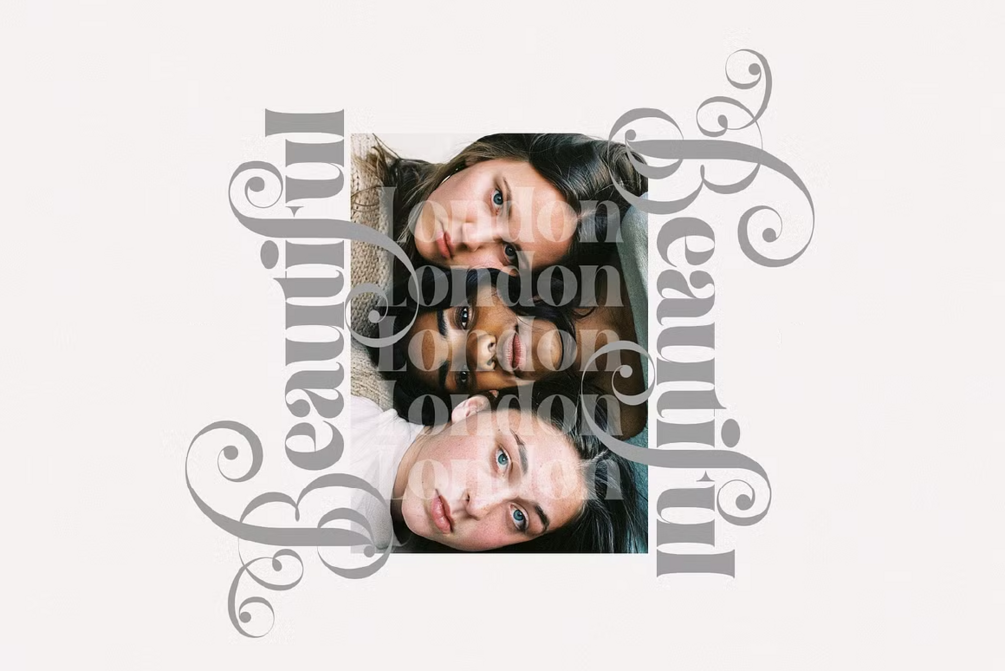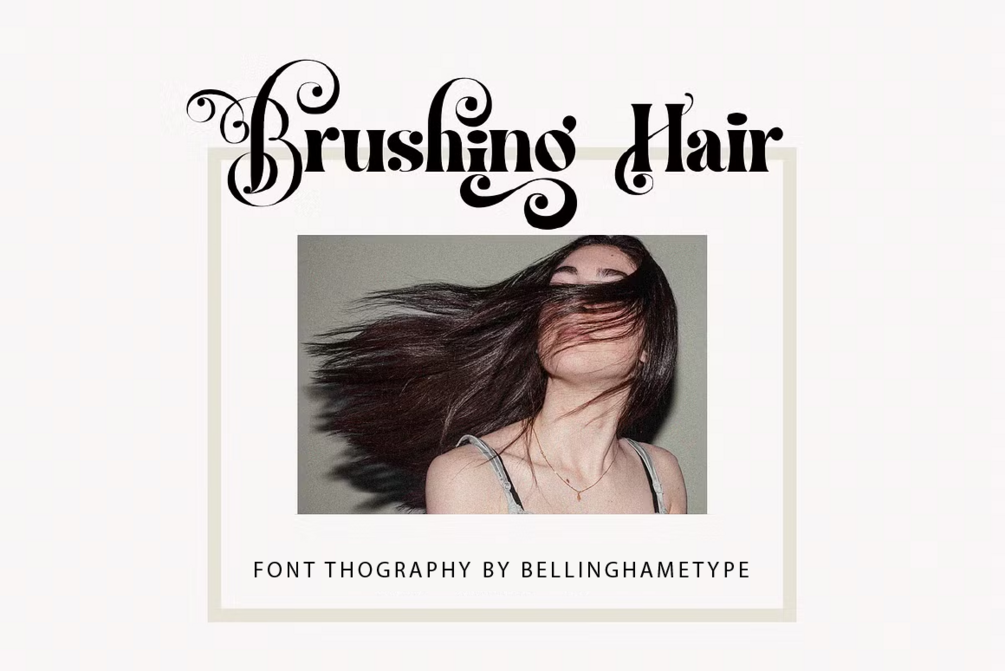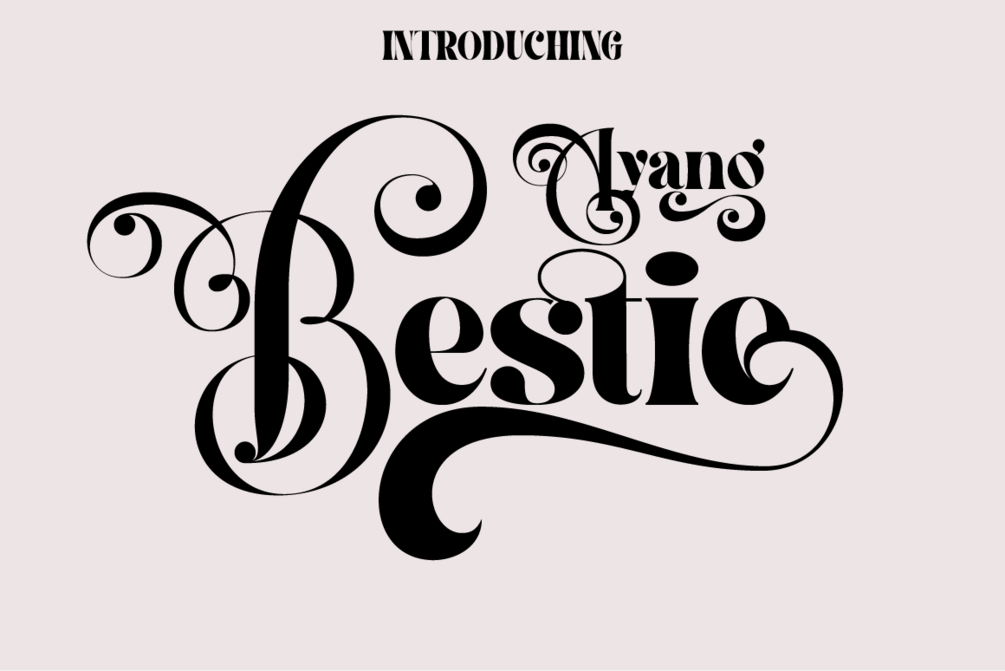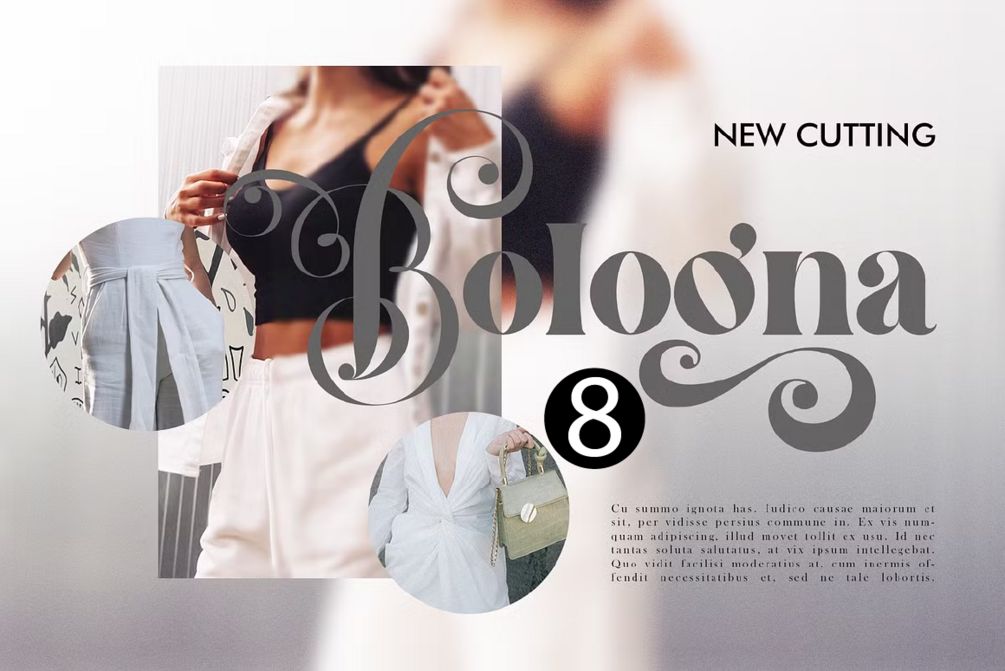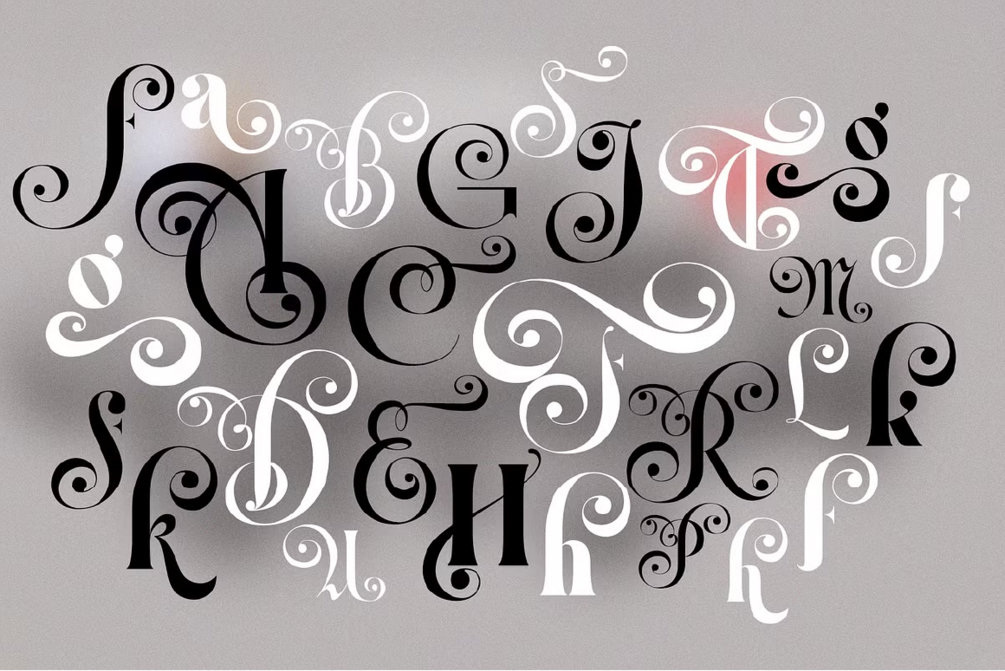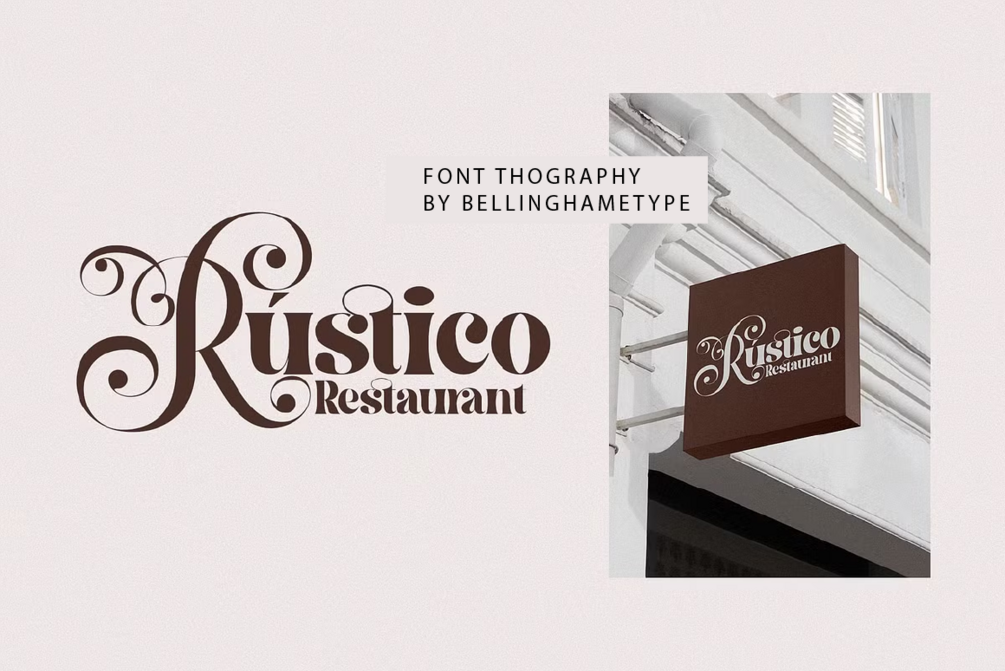
Ayang Bestie
Ayang Bestie is handwritten elegant font. This font would be perfect for photography, watermarks, social media posts, advertisements, logos & branding, invitations, product design, labels, stationery, product packaging, special events, and other projects.